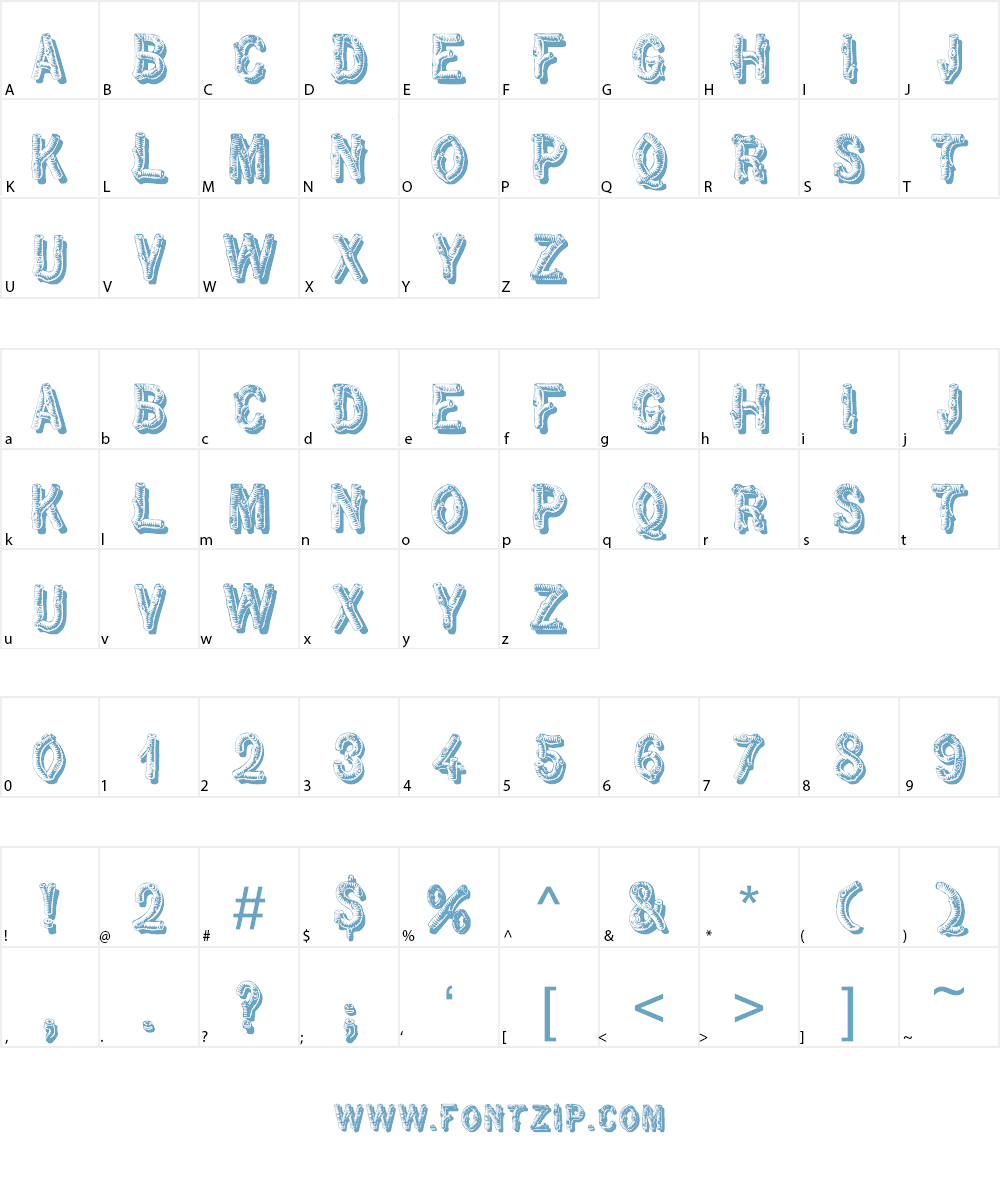
The Dan Solo publications use some confusing names for the Rustic Family.
In the Solotype Catalog of 4,147 typefaces, RUSTIC is shown with a black shadow. RUSTIC WHITESHADOW has a white shadow.
However, the Solotype digital font named RUSTIC has no shadow. Similar no-shadow fonts are also available as Pinewood (by Rick Mueller and one by Dieter Steffmann) and as Woody (by DincType).
As of October, 2011, no digitized version of Rustic Whiteshadow is known. Character has produced a font named RusticBlackShadow, which matches the font named Rustic in the Solotype Catalog. Dick Pape had created an earlier version named "Pepin Press Caps FA204", based on fonts contained in the Pepin Press book "Fancy Alphabets".